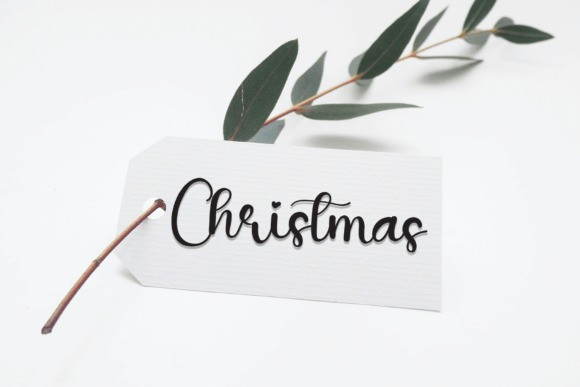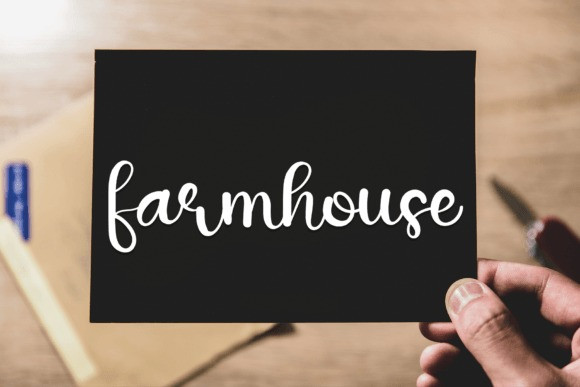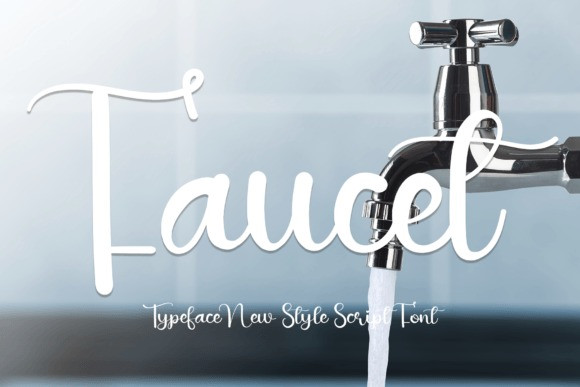
Faucet Font
Faucet Font is a sweet and smooth handwritten font. Cute and playful, this font is ideal for writing wedding invitations, cards, or any other design that might need a romantic and personal touch!